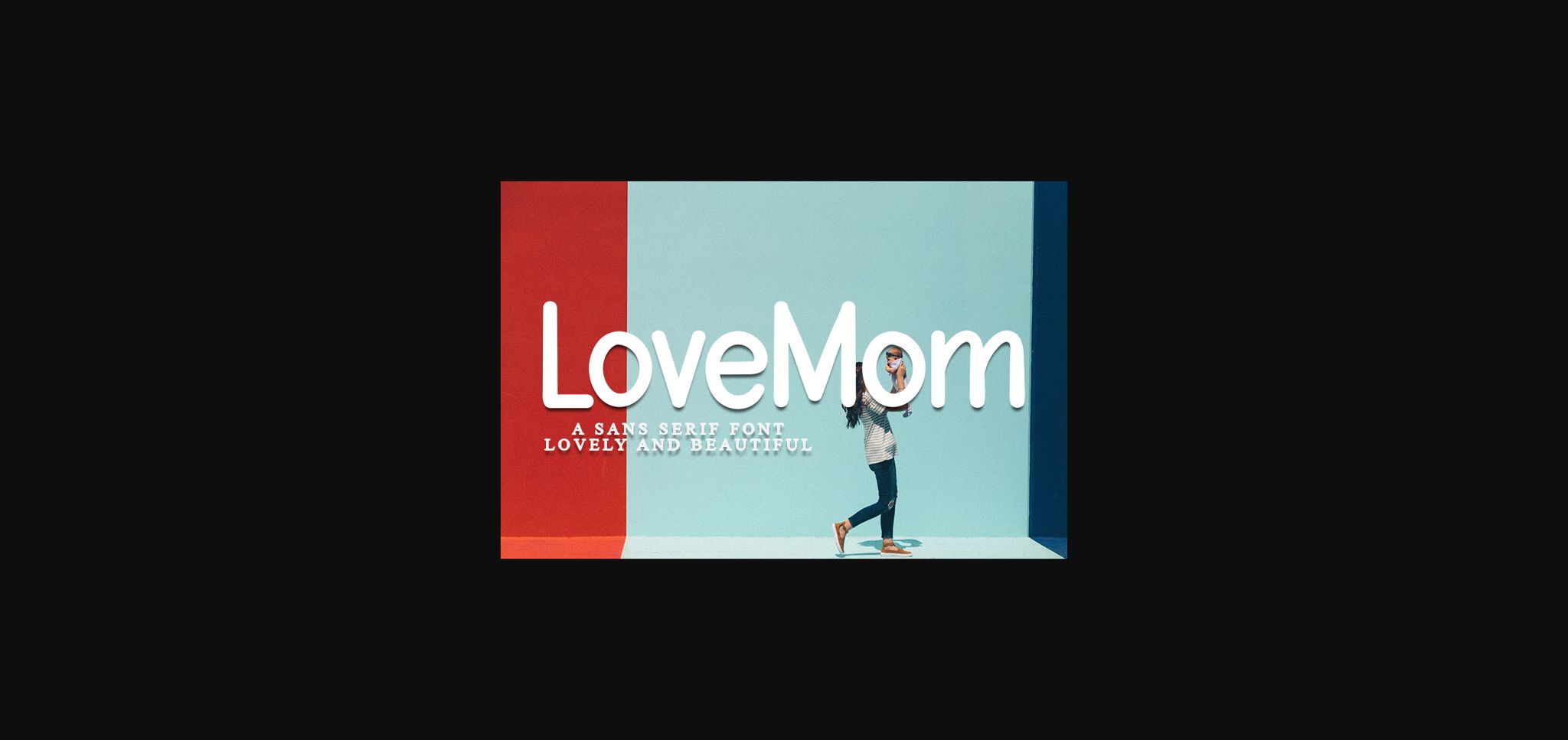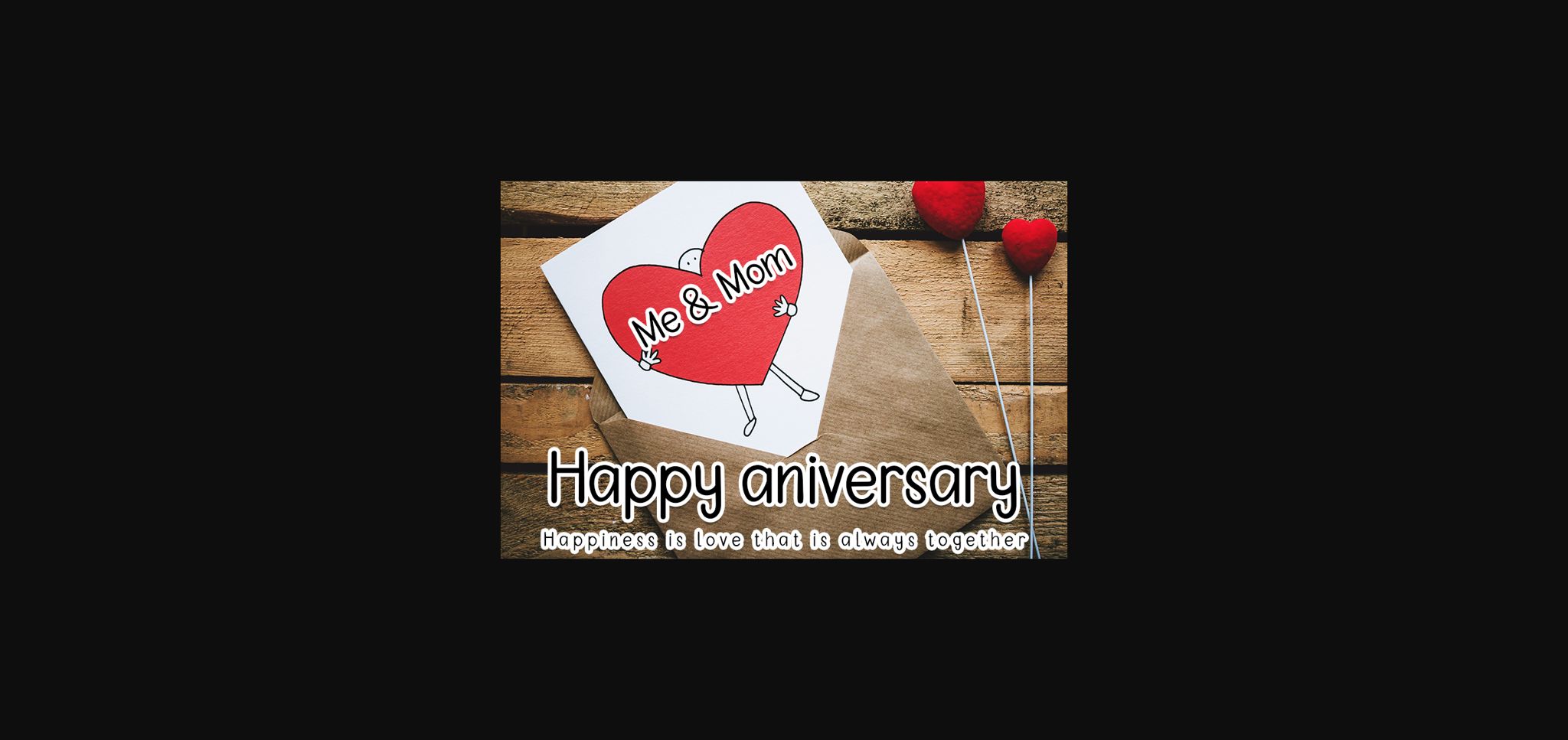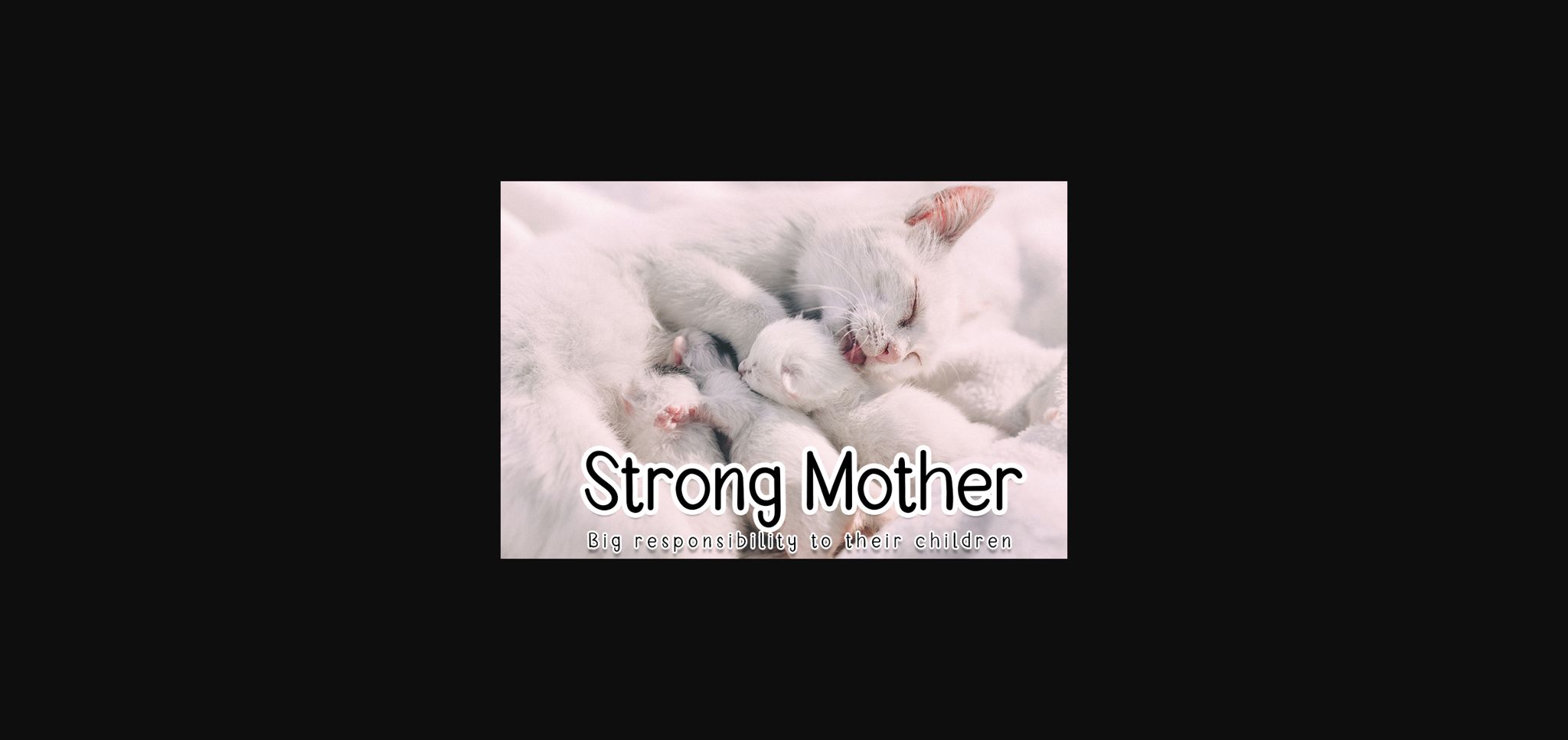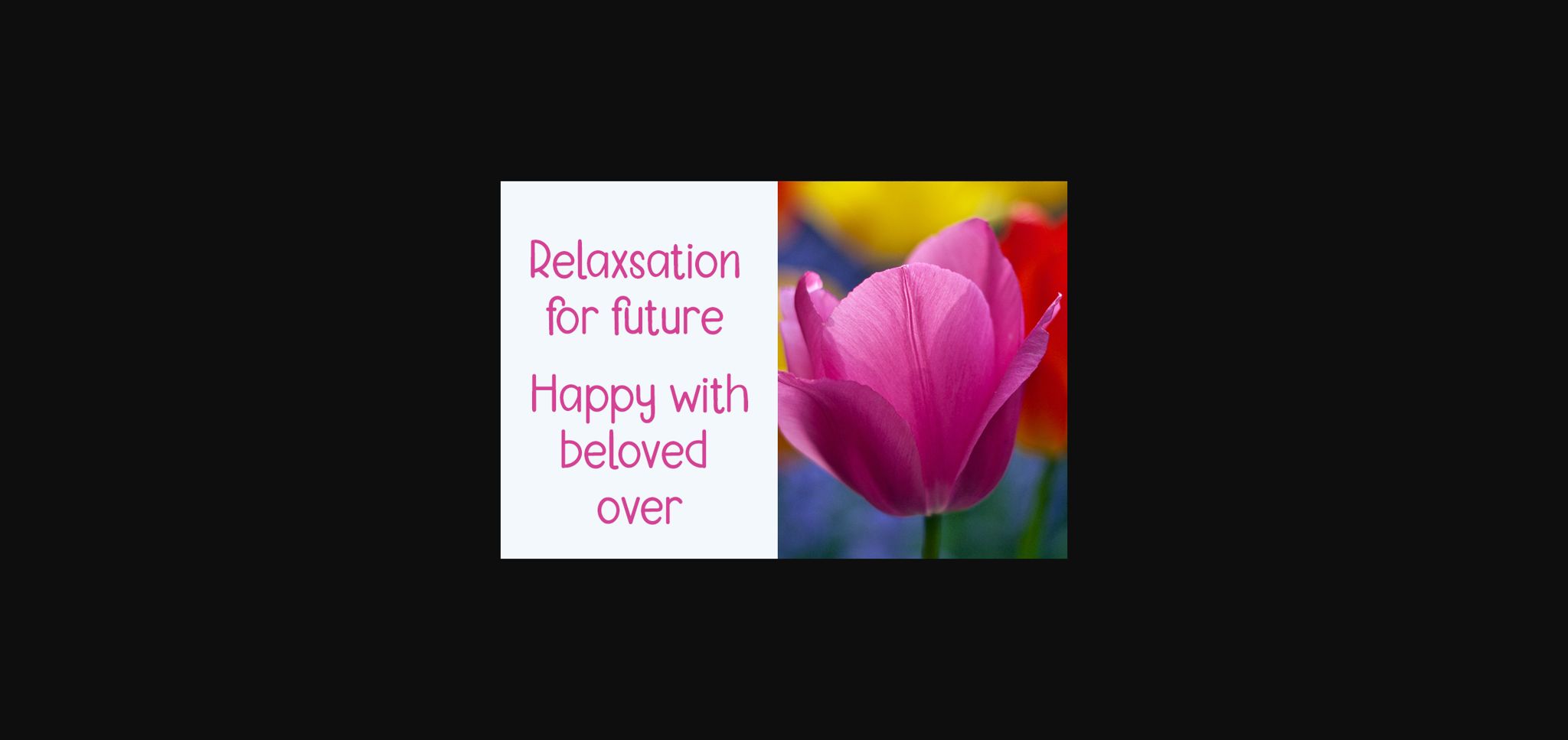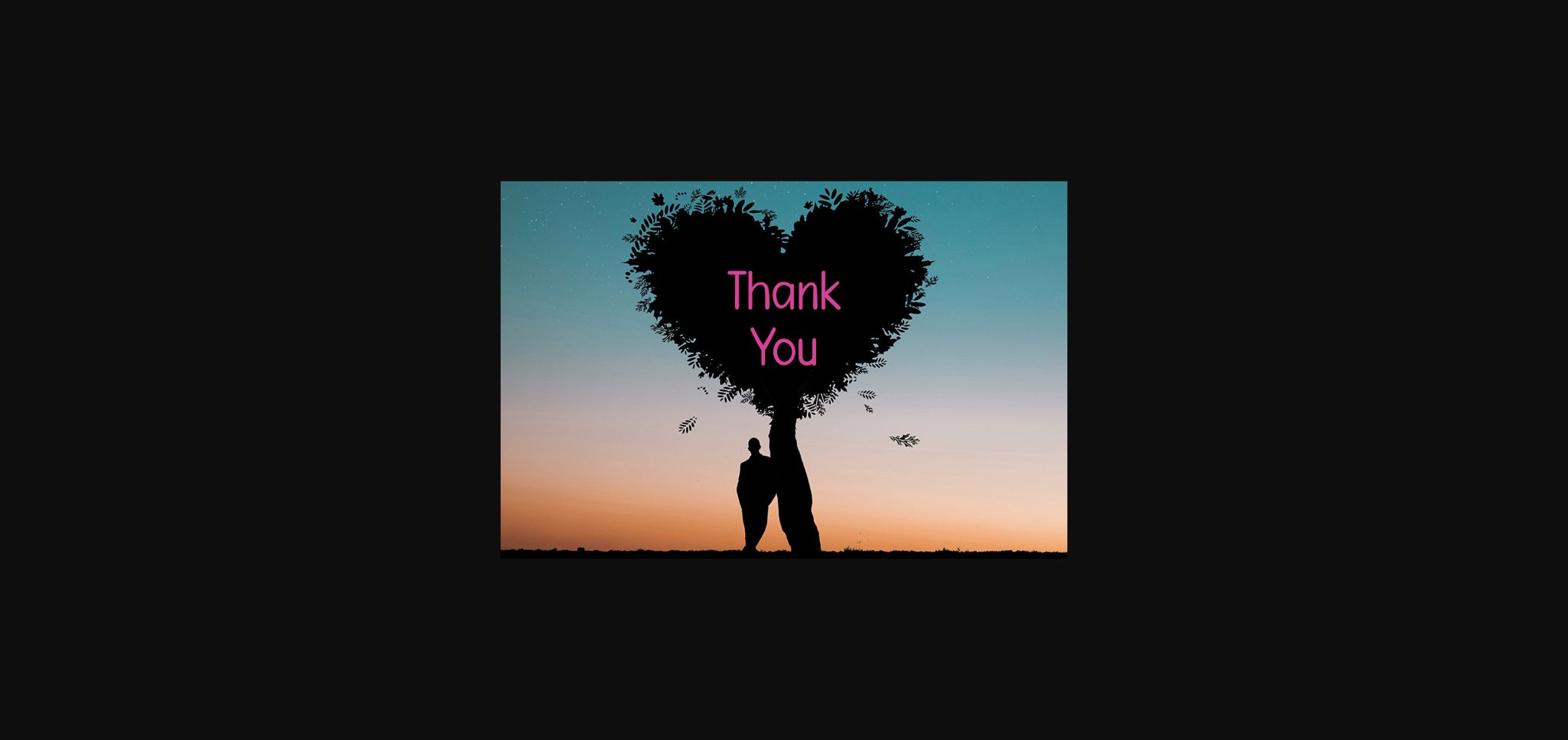
HomeSans Serif FontsLoveMom Font Sans Serif Fonts LoveMom Font FacebookXPinterestWhatsApp 1 of 7 ... LoveMom Font Poster 2... LoveMom Font Poster 3... LoveMom Font Poster 4... LoveMom Font Poster 5... LoveMom Font Poster 6... LoveMom Font Poster 7... About LoveMom Font LoveMom is a simple, all round and clean sans serif font. Its flexibility and neat style will brighten up each of your designs. Have fun with this cool font and explore its endless variations. DOWNLOAD NOW People also explored Story Ghosting Font Imagination Font Freshbot Cadmon Font Doemhand Font Raindhom Font Archiga Font Julietta Sweet Grace Font 299 0 TagsLoveMomLoveMom Font Previous articleEnclave FontNext articleVenus Font LEAVE A REPLY Cancel reply Comment: Please enter your comment! Name:* Please enter your name here Email:* You have entered an incorrect email address! Please enter your email address here Website: Save my name, email, and website in this browser for the next time I comment. Personal Use Free Avagan Personal Use Free Read more about this font Doriss Girls Family Personal Use Free Read more about this font Bajt Rounded Personal Use Free Read more about this font Electroharmonix Personal Use Free Read more about this font BLOG Free Fonts Risk: Why Free Fonts Can Be Dangerous for Designers Free Fonts Risk: Why Free Fonts Can Be Dangerous for Designers Using free fonts is a common practice in web and graphic design. However, the... Using Fonts in Digital Marketing: Tips to Strengthen Your Brand Identity Free vs Paid Fonts: Why Investing in Premium Fonts Is Worth It The 10 Best Handwriting Fonts to Add Personality to Your Designs